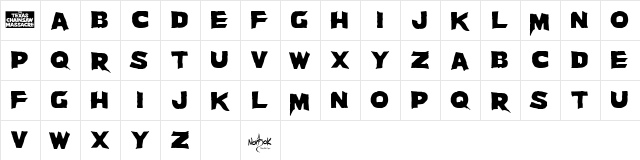
Massacre Regular Free Font
Massacre Regular
Design Context for Massacre
Massacre is a composed and adaptable typeface that performs quietly and consistently across a wide range of design contexts.